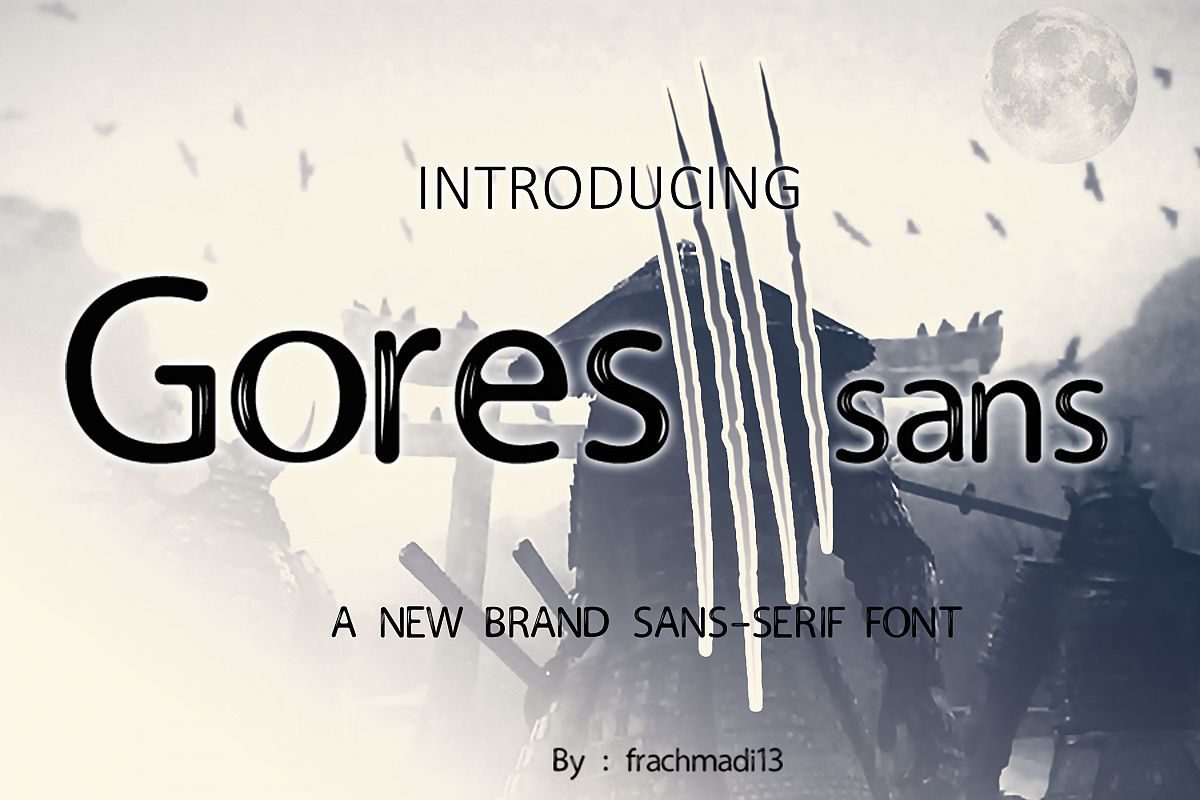
Gores Sans
Gores Sans is a new brand of Sans-Serif Font Family. It makes this font looks natural, stylish, and perfect for any awesome projects.
Gores Sans would be perfect for photography, lyric video, watermark, social media posts, advertisements, or any special event.